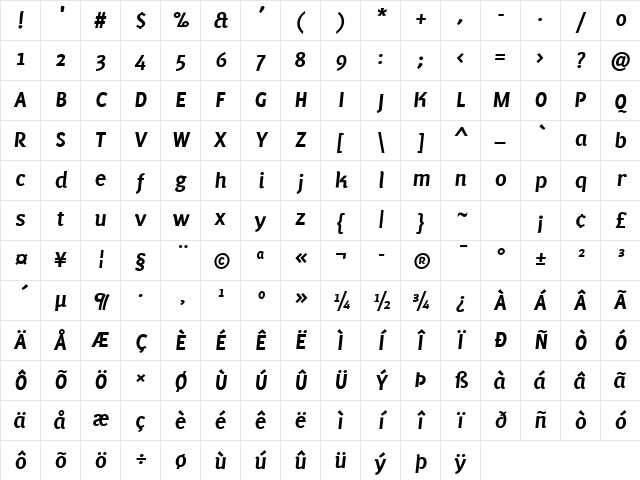
PF Muse Bold Italic
Foundry: Vangelis Karageorgos
Designer: Vangelis Karageorgos
Design Context for PF Muse
PF Muse is a composed and adaptable typeface that performs quietly and consistently across a wide range of design contexts. The slanted form adds forward momentum and visual energy. Its bold stroke weight gives it real presence on the page.
Pro Tip: Use PF Muse for emphasis, pull quotes, and subheadings where its slanted energy can add rhythm to the layout.
Who designed the PF Muse Bold Italic font?